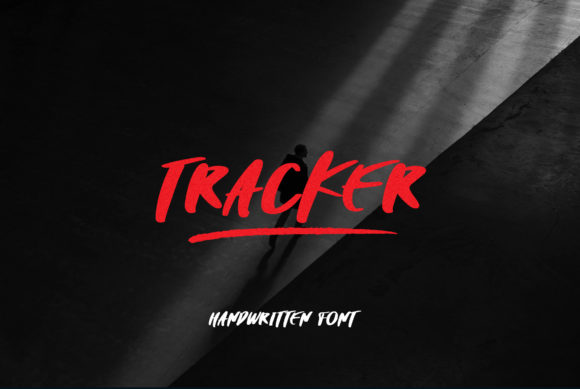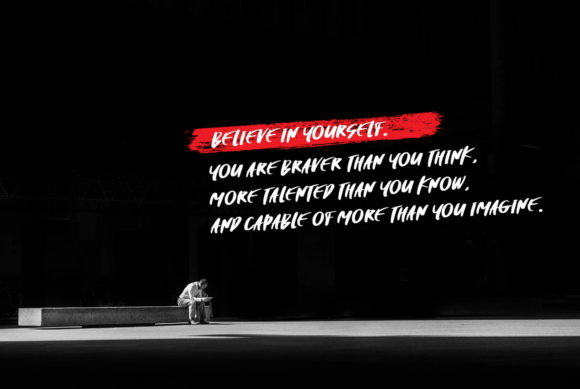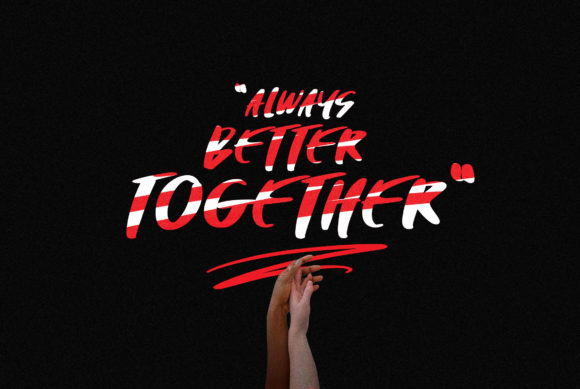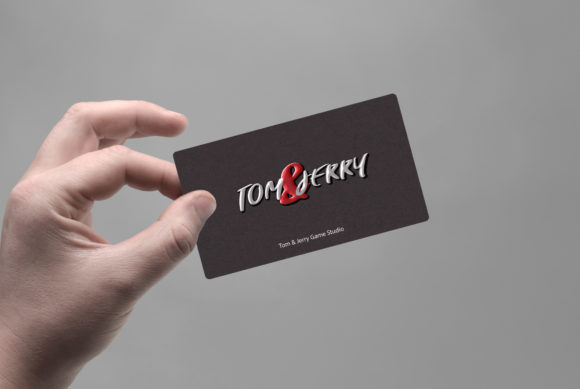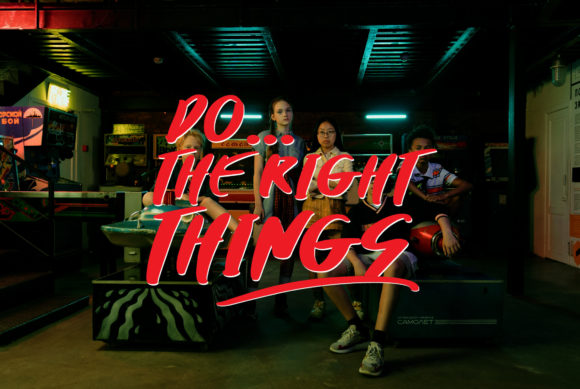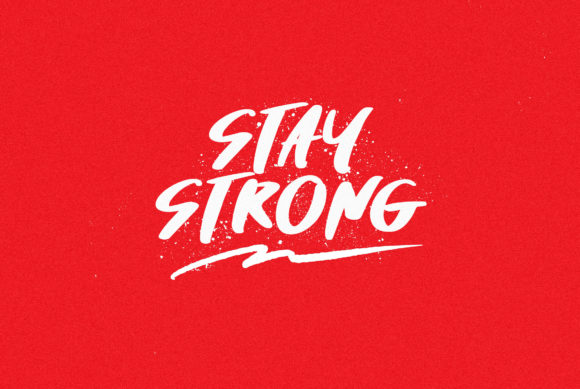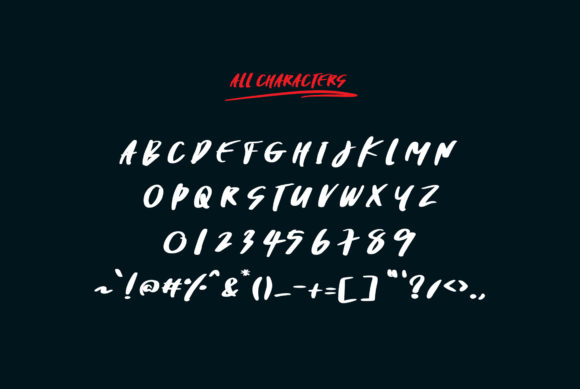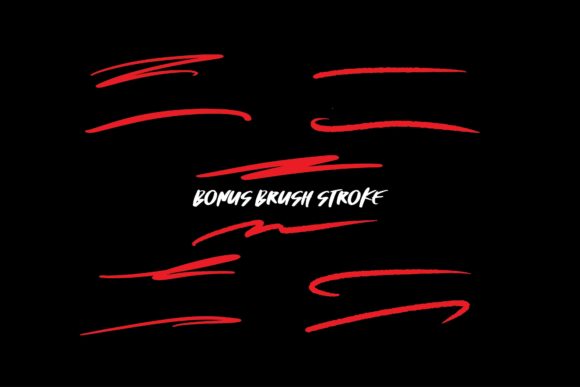
Tracker Font
About Tracker Font
Tracker is a cool and fun display font featuring the perfect amount of trendiness. Whether you’re using it for crafting, digital designing, presentations or greeting cards making, it’s perfect!